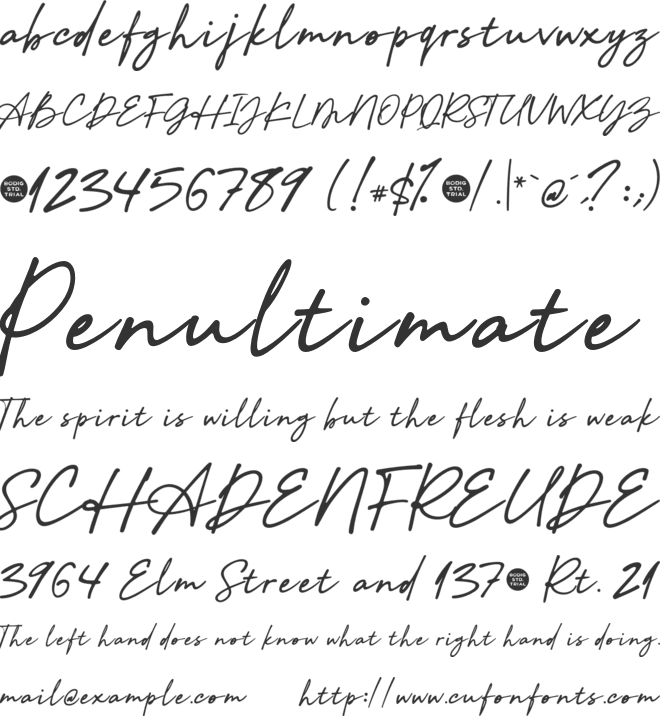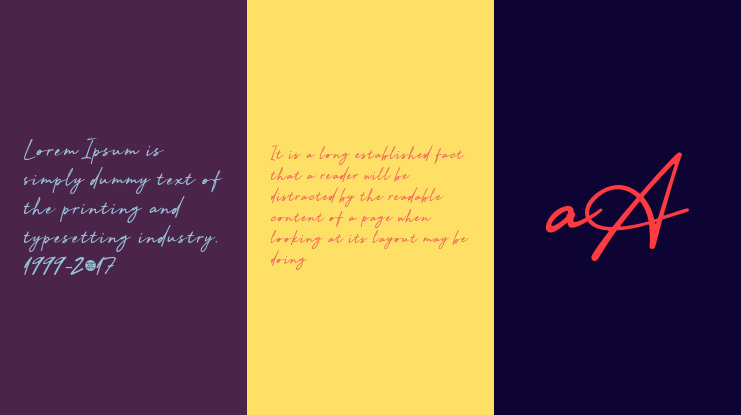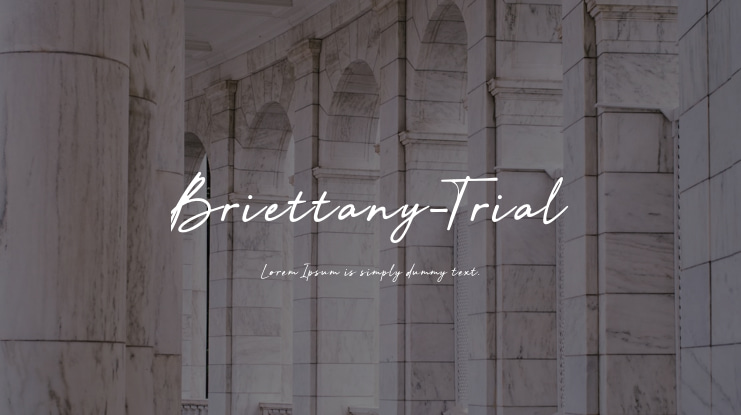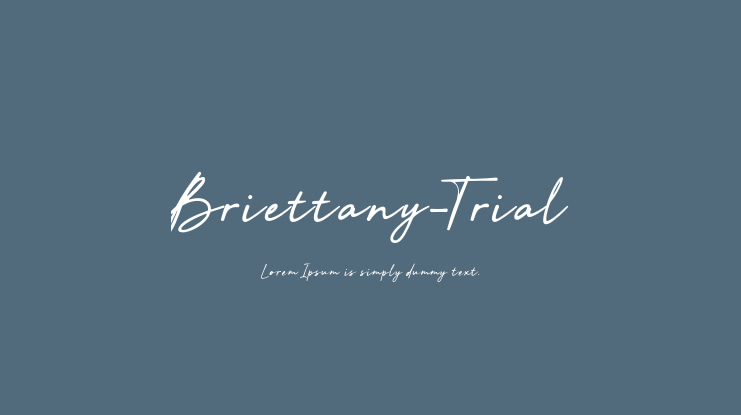
Briettany-Trial Font
Briettany is a unique and elegant handwritten script font. It looks beautiful on a variety of designs requiring a personalized style. You can use it for branding names, signatures, wedding designs, social media posts, advertisements, logos, and other projects that express beauty and luxury.